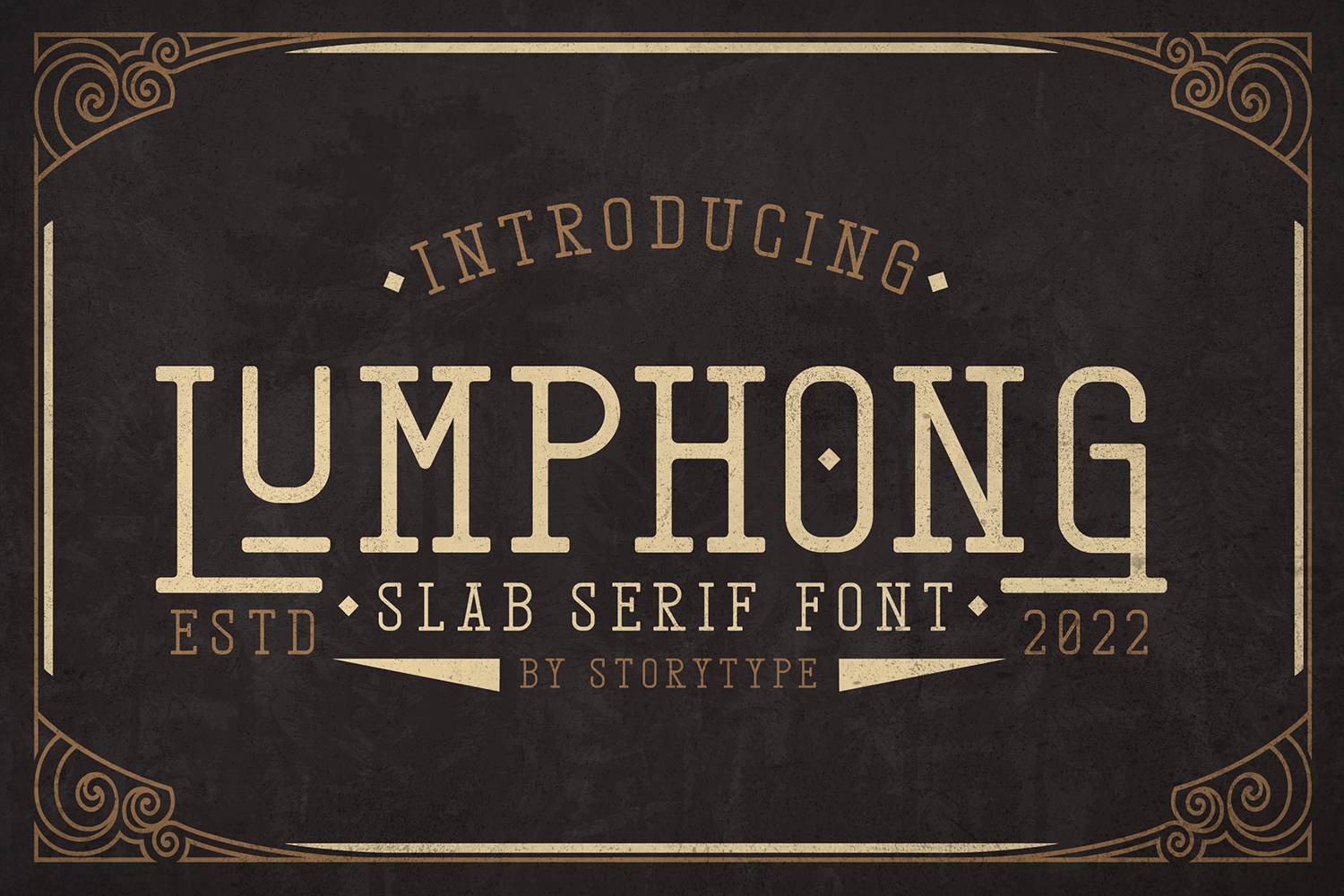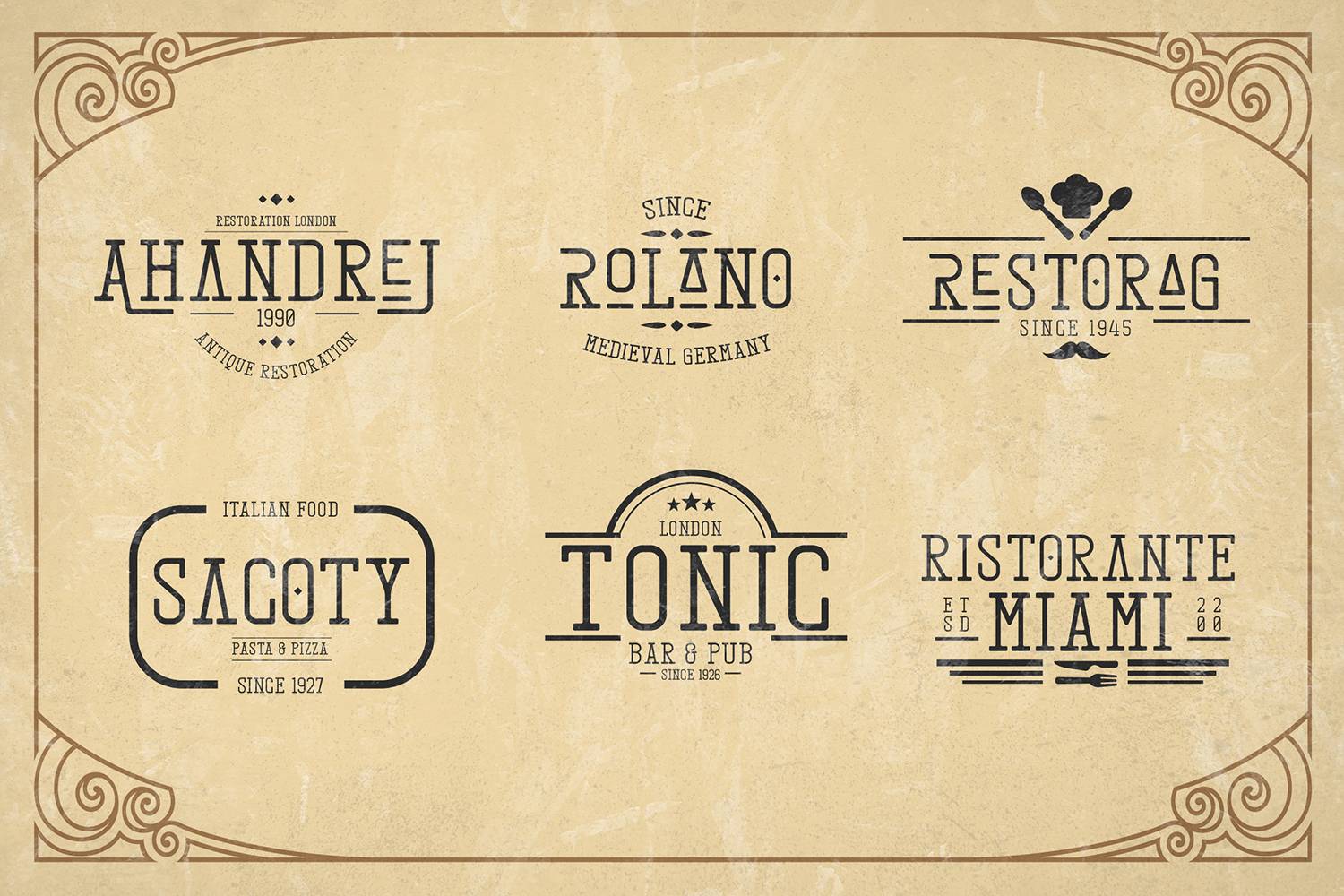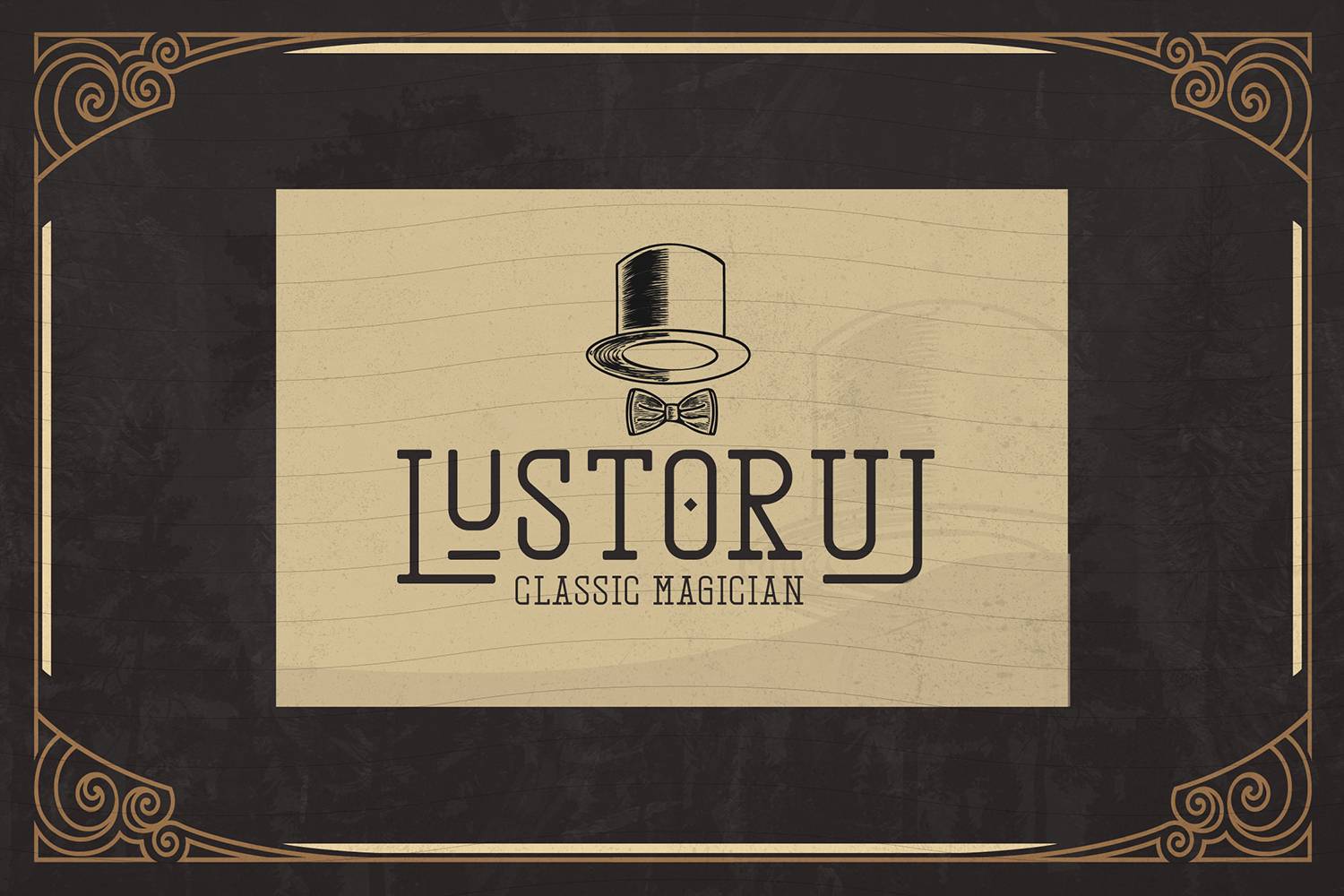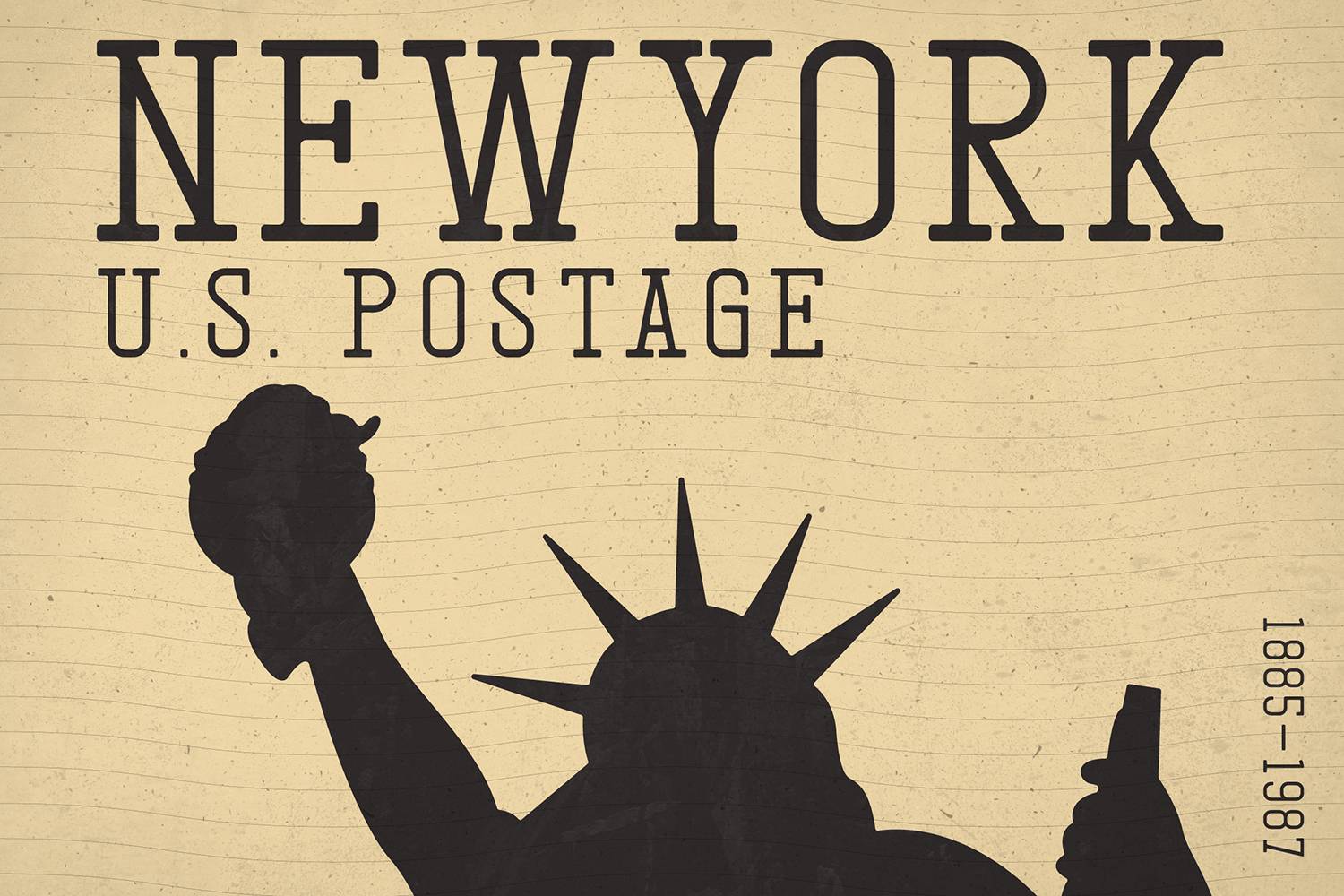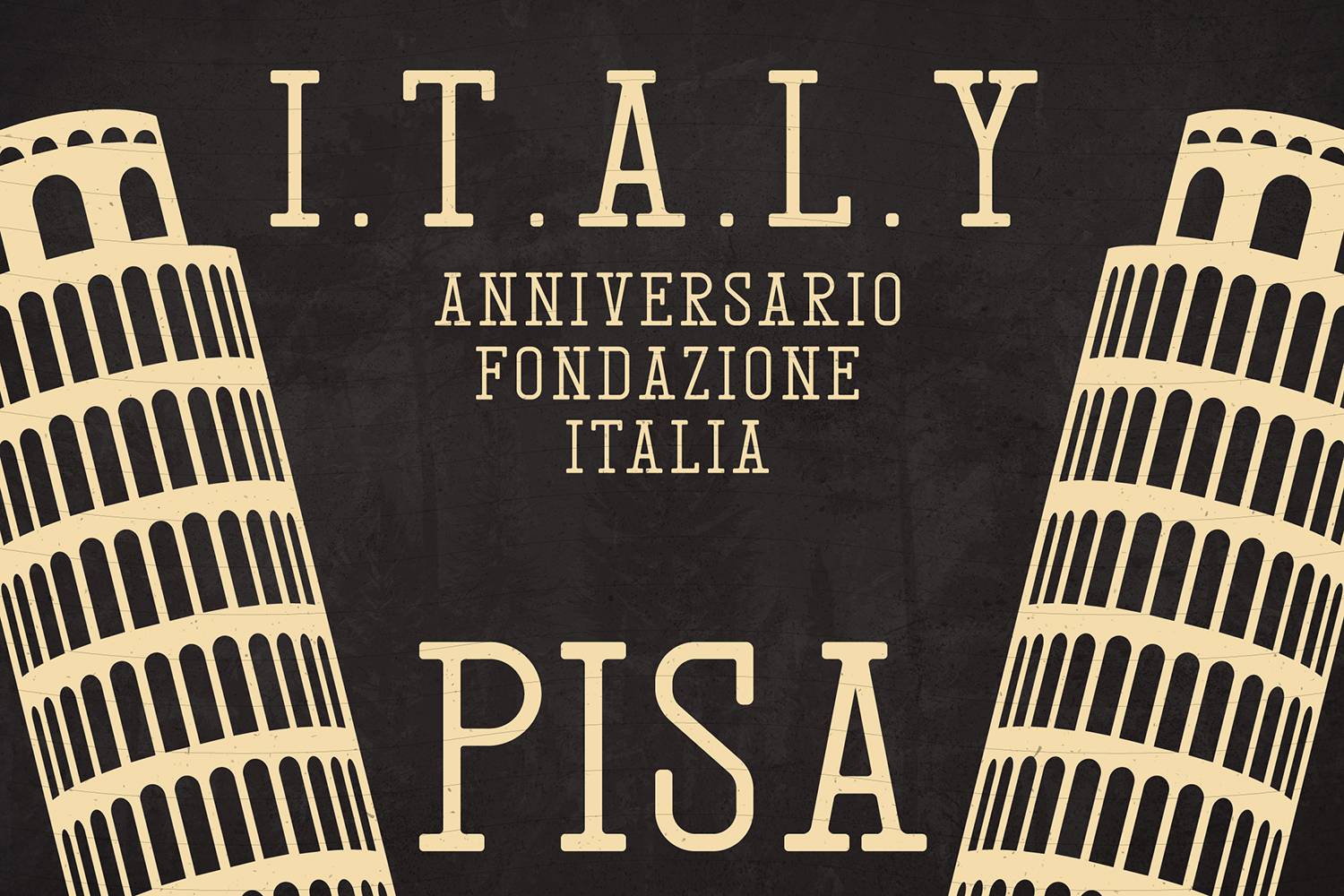
Lumphong is a condensed slab serif font with a vintage, industrial feel, featuring narrow, tall letterforms and consistent stroke weight. Its monospaced-like spacing and clear, sturdy shapes make it ideal for headlines, posters, and branding that require a strong, utilitarian appearance with a touch of retro character. This font works well where a distinct, readable style is needed to convey seriousness with subtle personality.
Lumphong Font